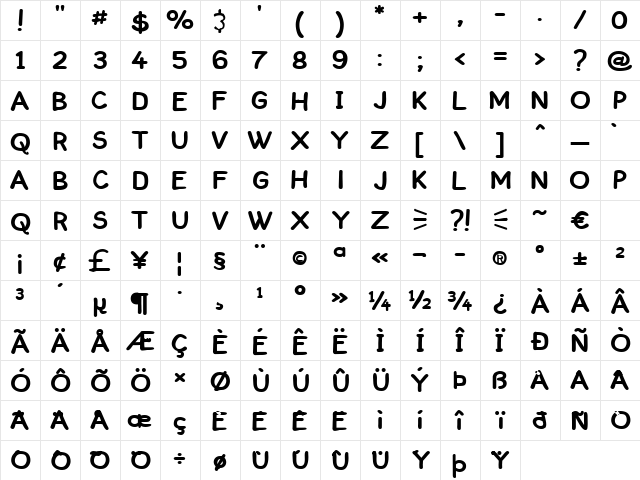
ComickBook Caps Regular
Design Context for ComickBook Caps Typeface
ComickBook Caps has an approachable, lighthearted character — its loose, expressive forms are well-suited to children's content, casual branding, and fun-first design.
Font Pairing: Pairs well with a rounded or humanist sans for body copy, maintaining the friendly tone without relying on ComickBook Caps to carry extended reading.
Pro Tip: Avoid using ComickBook Caps for long passages of text — it works best for headlines, labels, and short calls to action.